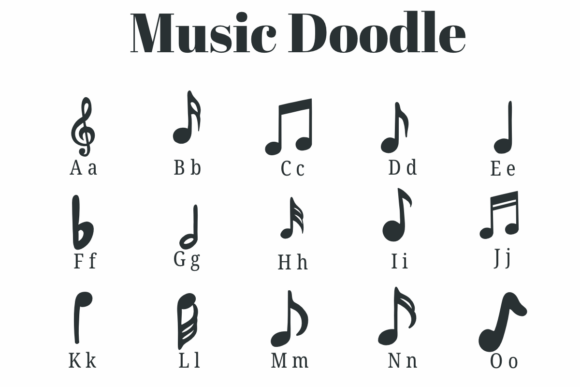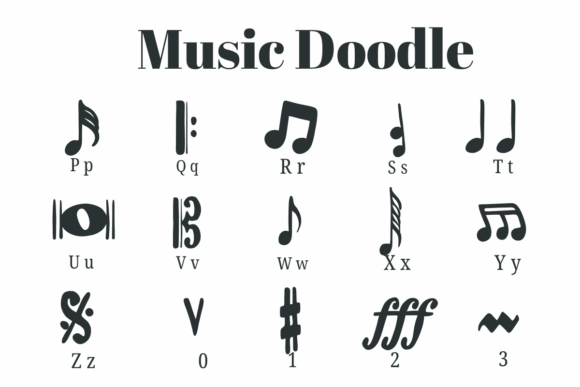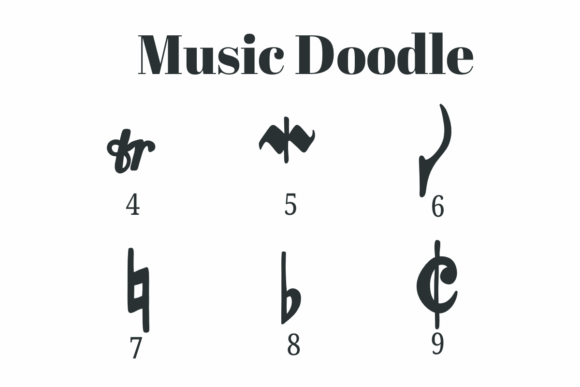
Introduction to Music Doodle Font
Have you ever been brainstorming a creative project, only to have it come to life in your mind’s eye, but struggle to put it into words? This is a common problem many designers face, and it’s where a versatile design resource like the Music Doodle Font comes into play.
Imagine being able to bring your ideas to life with a simple, yet elegant font that combines the whimsy of a doodle with the precision of a design tool. The Music Doodle Font is a dingbats font that boasts a sketch style, making it the perfect addition to any creative project.
Key Features of Music Doodle Font
- High-quality vector graphics for a crisp and clear design
- Unique, hand-drawn design that adds a touch of personality to any creative project
Honest Review: Music Doodle Font
Here are some things that work well:
- ✨ Unique aesthetic: The Music Doodle Font has a charming, hand-drawn feel that’s perfect for adding a touch of whimsy to any design.
- ✨ Versatile: This font can be used for a wide range of creative projects, from music-inspired artwork to children’s book illustrations.
- ✨ Transparent background: The font’s transparent background makes it easy to use in conjunction with other design elements.
- ⚠️ Limited character set: The Music Doodle Font has a limited character set, which may make it less suitable for projects that require a wide range of characters.
- ⚠️ Not suitable for large-scale text: The font’s playful, cursive design may not be the best choice for large-scale text or headlines.
Overall, the Music Doodle Font is a great addition to any designer’s toolkit, offering a unique and versatile design resource that’s perfect for a wide range of creative projects.
Tips for Getting the Most Out of Music Doodle Font
To get the most out of Music Doodle Font, experiment with different font sizes, colors, and styles to create a unique design. Use the transparent background option to create a sense of depth and dimensionality in your design. You can also combine Music Doodle Font with other design elements, such as images and graphics, to create a visually appealing design.
Music Doodle Font is a versatile design resource that can be used in a variety of creative projects, including music-themed designs, educational materials, and promotional materials. It’s a great option for anyone looking for a high-quality, free download font that can add a touch of creativity to their design projects.